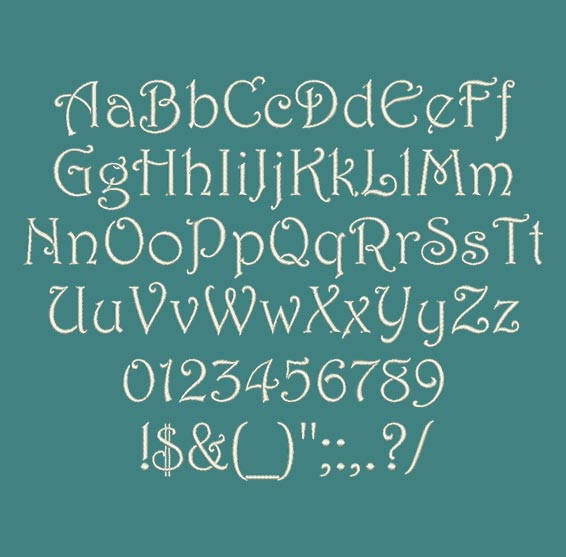
Swirly Classic Font - Harrington Regular Machine Embroidery Font Now Includes BX Format!
Title: Harrington Regular Machine Embroidery Font
This Harrington Regular font is perfect for personalizing clothes, bags, towels and linens!